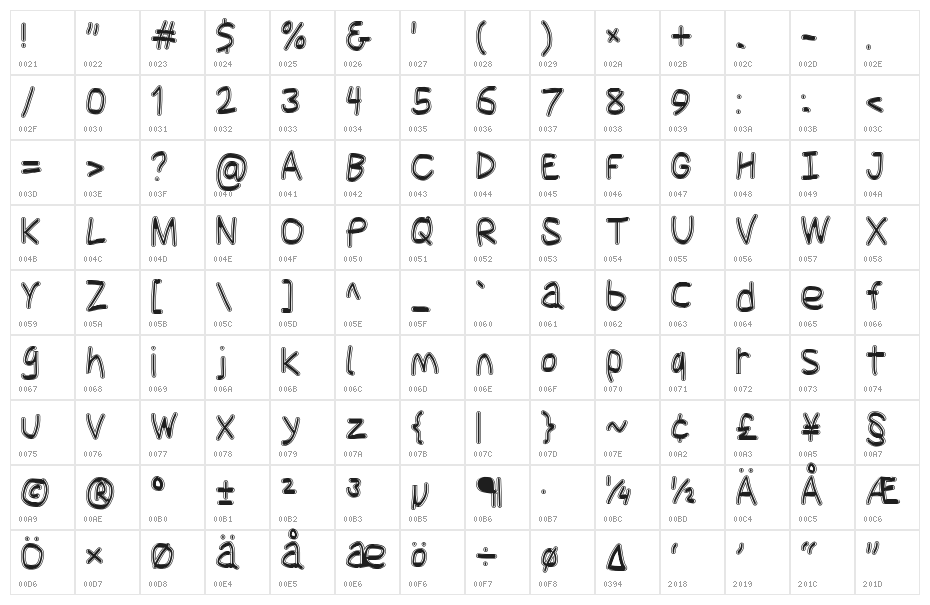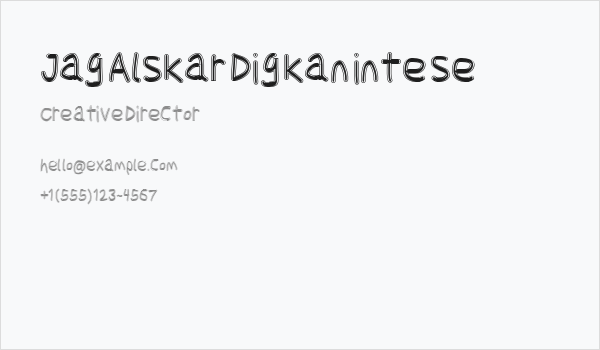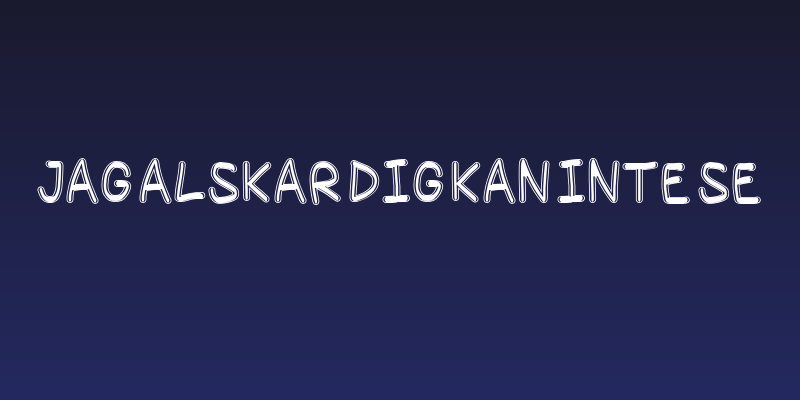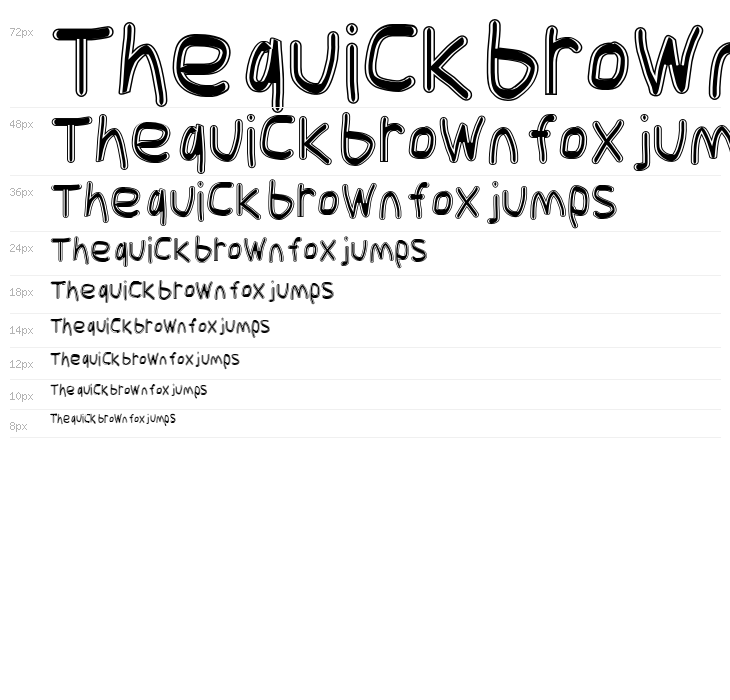
Jag Alskar Dig kan inte se Font
Jag Alskar Dig kan inte se Description
This playful and whimsical font features a hand-drawn style with a bold outline that gives each character a distinct and lively appearance. The uppercase and lowercase letters maintain a consistent, rounded form, while the numbers and special characters follow the same playful aesthetic. The font's unique charm is enhanced by its slightly irregular lines, adding to its handcrafted feel. This design is perfect for projects that require a fun and engaging look, such as children's books, playful branding, or creative posters.
| Overall Style | Whimsical, Playful, Handcrafted |
| Proposed Projects | Ideal for children's books, playful branding, creative posters, and casual invitations. |